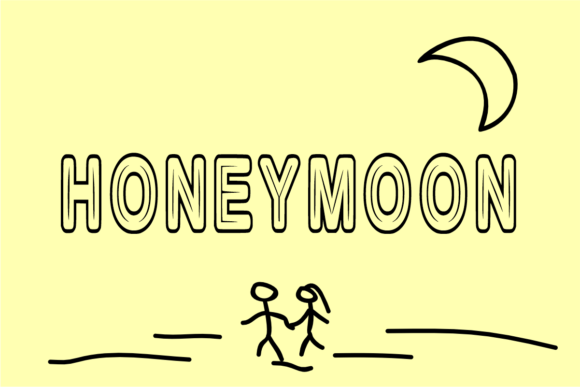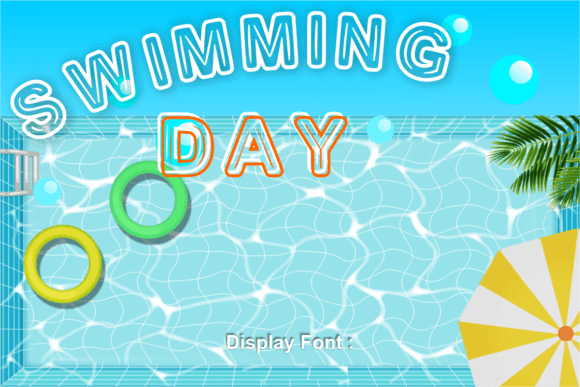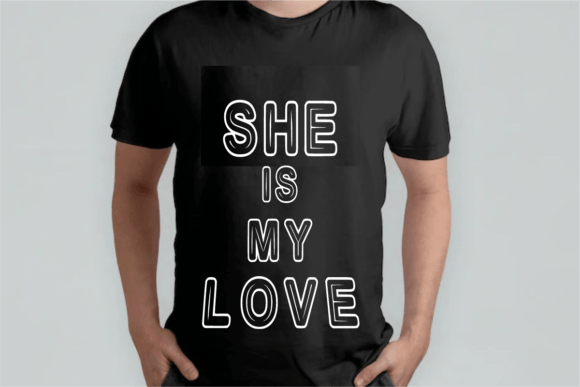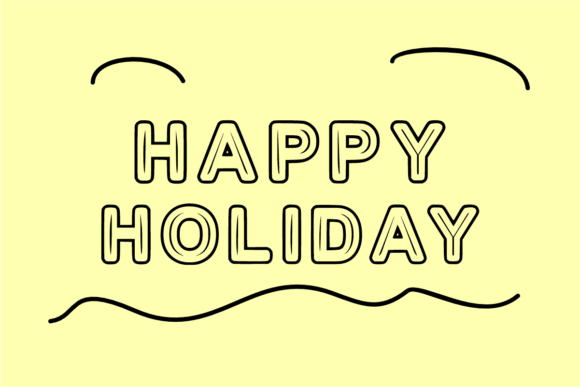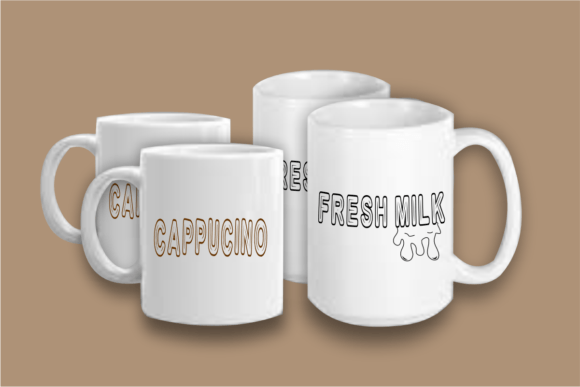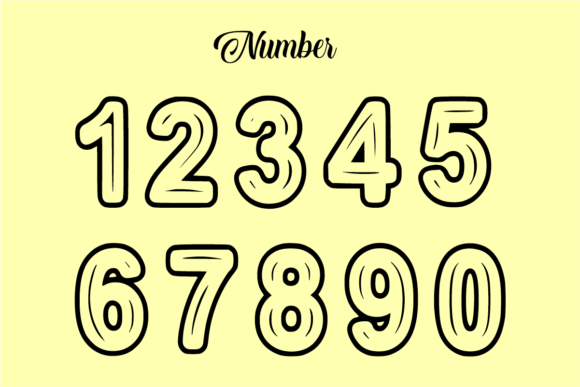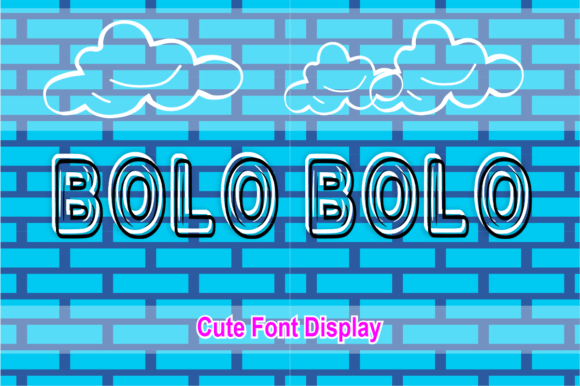
The Bolo Bolo Font: A Playful yet Classic Addition to Your Designs
I’ll never forget the time I was working on a project for a children’s birthday party invitation. I had the design concept all figured out, but I was struggling to find the perfect font to bring it all together. That’s when I stumbled upon the Bolo Bolo font. Its playful, yet classic look instantly caught my eye, and I knew I had found the one. In this article, I’ll share my experience with the Bolo Bolo font, its features, and how to make the most of it in your designs.
A Personal Review of Bolo Bolo
As a designer, I’m always on the lookout for fonts that can add a touch of personality to my projects. Here’s what I love about Bolo Bolo:
- ✨ Cute and adorable: Bolo Bolo has a unique charm that makes it perfect for designs that require a playful touch.
- ✅ Playful yet classic: This font strikes the perfect balance between fun and sophistication, making it suitable for a wide range of projects.
- 💡 Highly versatile: Bolo Bolo can be used for various design projects, from invitations and posters to social media graphics and more.
While Bolo Bolo is an excellent font, it’s not without its quirks:
- 🤔 Limited use in formal designs: Due to its playful nature, Bolo Bolo might not be the best choice for formal or professional designs.
- ⚠️ Some characters may require adjustment: Depending on the design, some characters might require manual adjustment to ensure proper spacing and alignment.
The Story Behind Bolo Bolo
The Bolo Bolo font was created by a talented type designer who wanted to craft a font that would bring joy and playfulness to designs. Inspired by traditional children’s books and playful typography, Bolo Bolo was born. Its unique charm and character have made it a favorite among designers and crafters.
| Font Name | Bolo Bolo Font |
| Author | anamalmusyaffaCreative |
| What type of designs is Bolo Bolo best suited for? | Bolo Bolo is perfect for designs that require a playful, yet classic touch, such as children’s party invitations, posters, and social media graphics. |